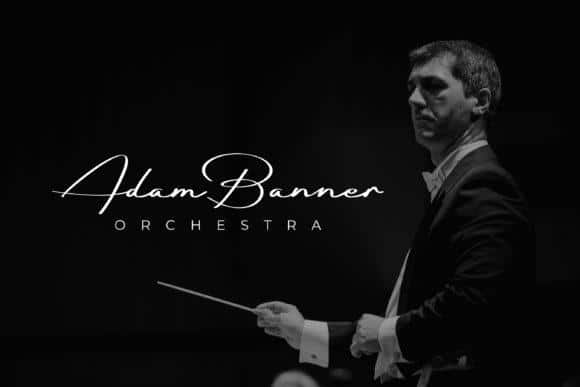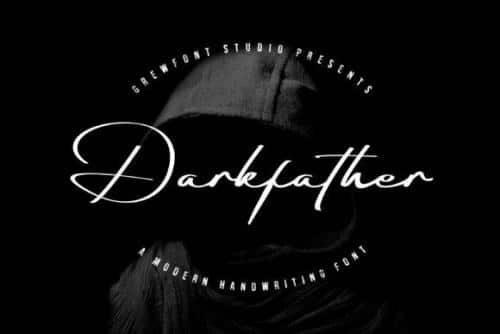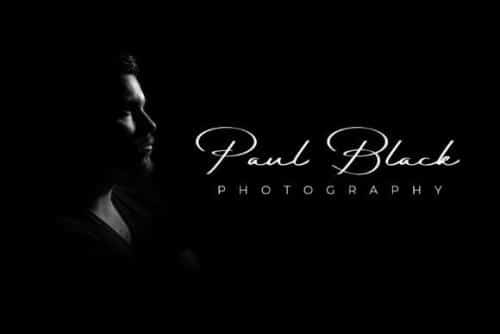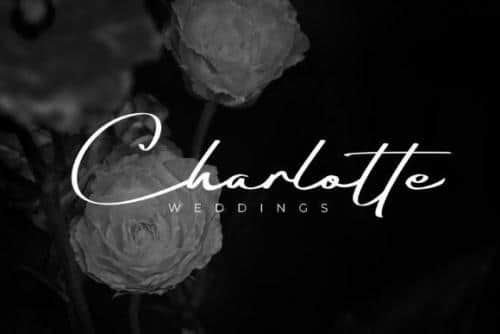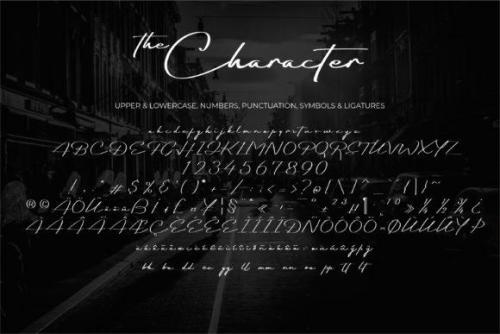
Darkfather Handwritten Signature Font
Darkfather feels equally charming and elegant. This stunning script font is a stylish homage to classic calligraphy. Get inspired by its authentic feel and use it to create gorgeous wedding invitations, beautiful stationary art, eye-catching social media posts, and cute greeting cards.